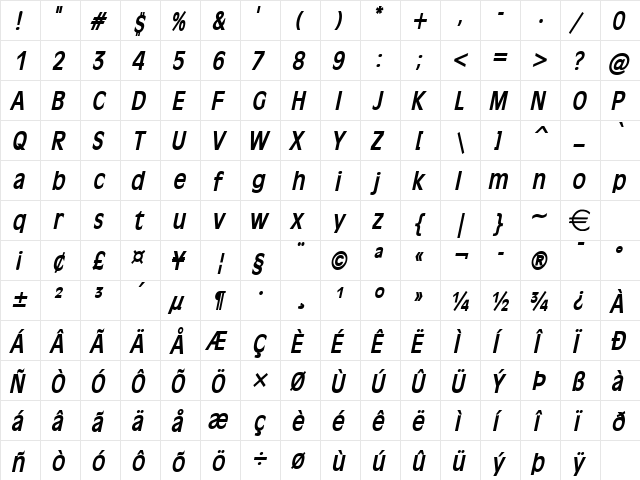
Antiqua101Condensed BoldItalic Font Preview
Design Context for Antiqua101Condensed Typeface
Antiqua101Condensed is a composed and adaptable typeface that performs quietly and consistently across a wide range of design contexts. Its italic angle brings a sense of urgency and motion to the letterforms. The heavy weight commands attention and anchors typographic hierarchies. The condensed width makes it efficient for tight spaces without sacrificing legibility.
Pro Tip: Use Antiqua101Condensed for emphasis, pull quotes, and subheadings where its slanted energy can add rhythm to the layout.